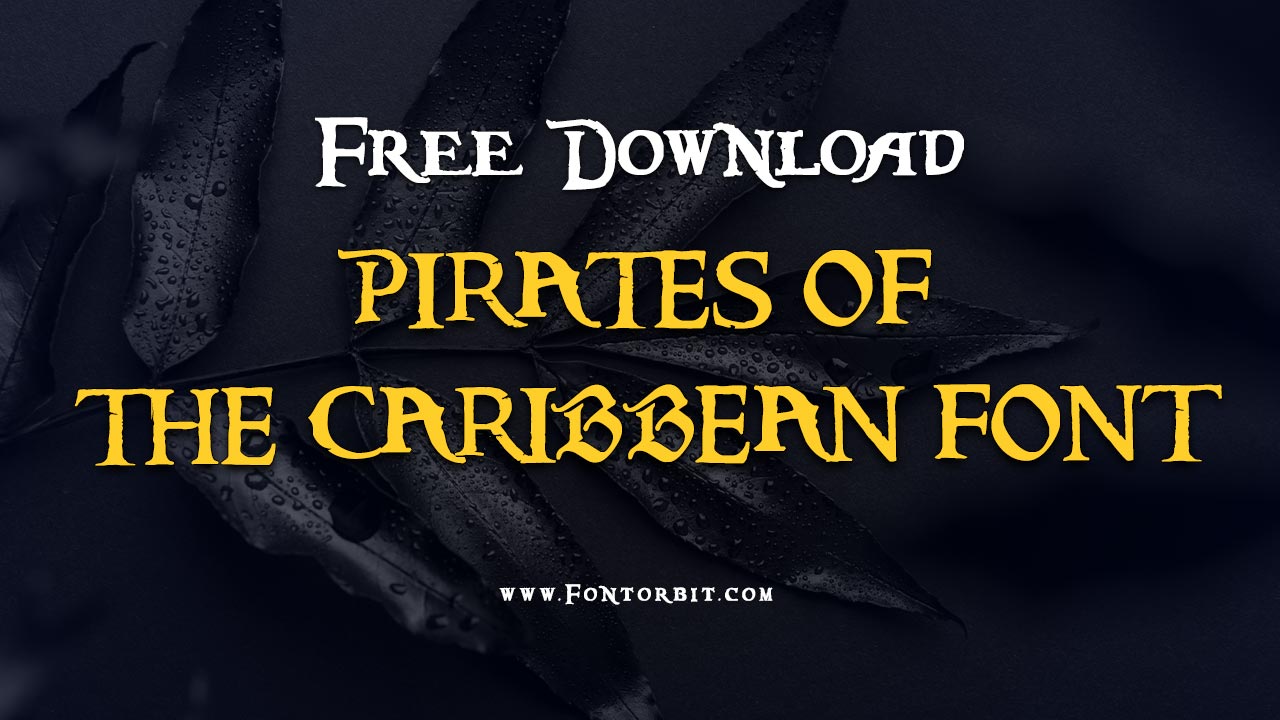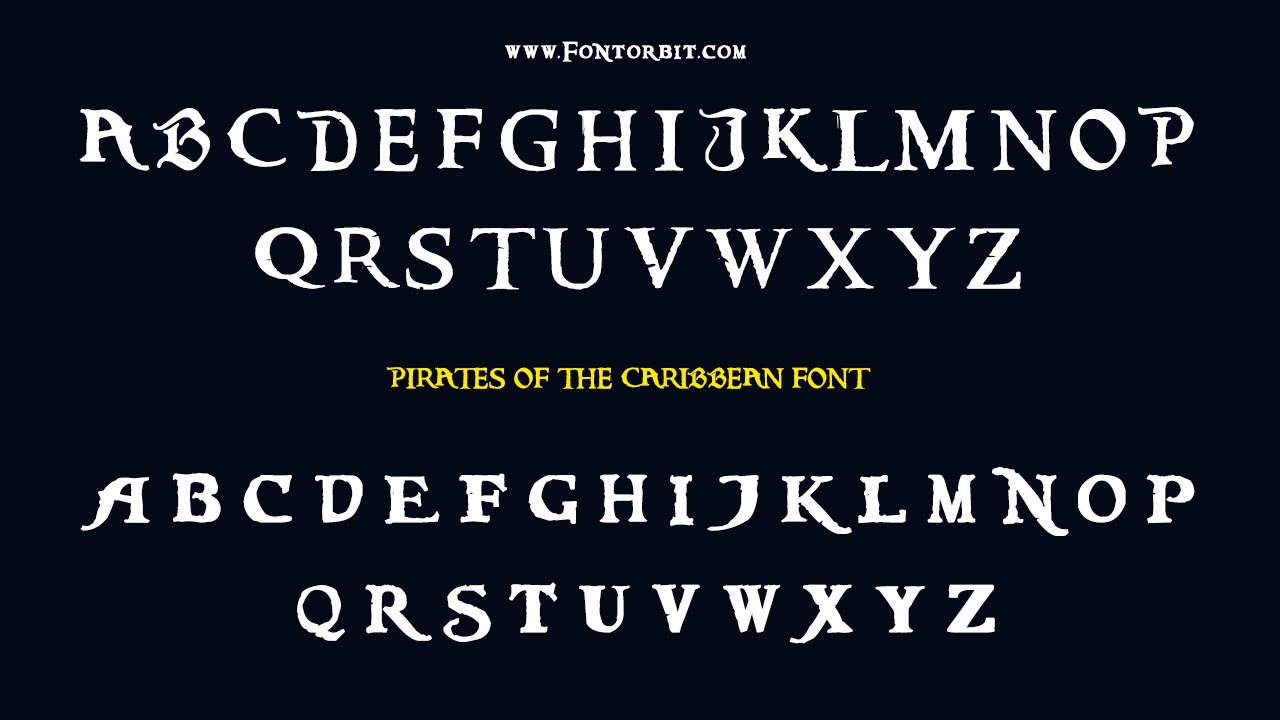
The Pirates of the Caribbean font is an iconic typeface that captures the adventurous spirit of the beloved film series.
Based on the Gothic style used in the film’s title, this font has gained popularity among designers for its dramatic and classic look. Designed by Mseek, the font is free for personal use and provides a distinct touch of swashbuckling charm to various design projects.
The Pirates of the Caribbean font is a Gothic-style typeface that stands out with its ornate and medieval-inspired design. The Pirates of the Caribbean font is actually the “Pieces of Eight” font.
The Pirates of the Caribbean font excels in providing a dramatic, vintage feel to designs. Its Gothic style is perfect for creating a sense of adventure and intrigue. The font’s unique appearance ensures that your text stands out, adding a touch of theatrical flair to any context.
The Pirates of the Caribbean font is frequently used in movie marketing, event invitations, and themed graphic design. Its distinctive style is a favorite for projects that require a touch of fantasy and old-world charm.
Whether used for eye-catching headlines or detailed themed decorations, this font’s elaborate design makes it a standout choice for projects that seek to capture the essence of adventure.
These free alternatives offer similar Gothic characteristics to the Pirates of the Caribbean font, providing designers with options that maintain a vintage, dramatic aesthetic while accommodating different project needs.
The Pirates of the Caribbean font is a captivating typeface that adds a touch of adventure and mystery to various design projects. Its Gothic design makes it suitable for thematic and fantasy contexts, while its wide range of characters and glyphs ensures compatibility with diverse design needs.
The font’s unique style and historical flair make it a valuable addition to any designer’s collection, especially for projects aiming to evoke a sense of the dramatic and the adventurous.
2.What Does Pirates Of The Caribbean Font Look Like?
The Pirates of the Caribbean font is a Gothic-style typeface with intricate, medieval-inspired letterforms. It features elaborate swashes and flourishes that evoke a sense of adventure and drama, suitable for headings and thematic designs.
4.What Font Is Closest To Pirates Of The Caribbean?
Fonts similar to the Pirates of the Caribbean include Blackletter, Cloister Black, and Uncial Antiqua. These fonts share a Gothic aesthetic with elaborate and vintage-inspired letterforms, making them suitable alternatives for similar design needs.